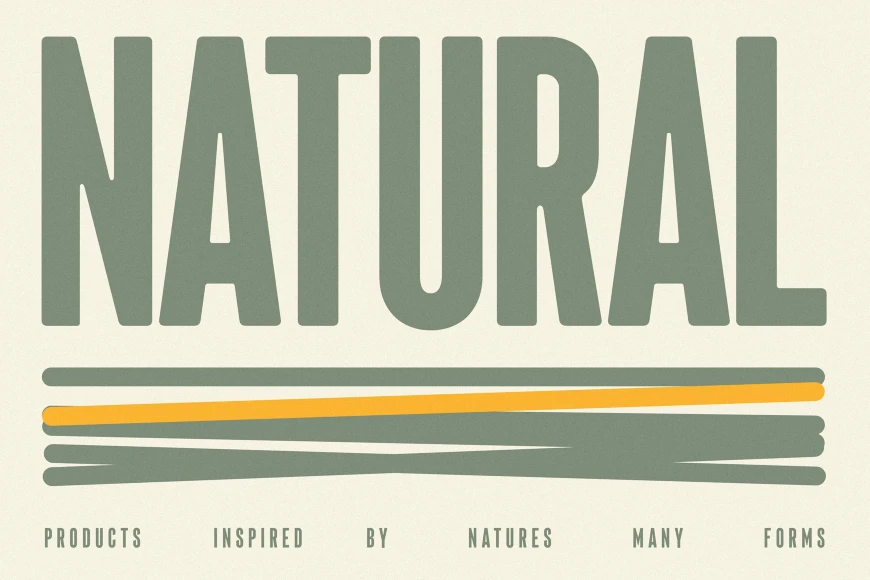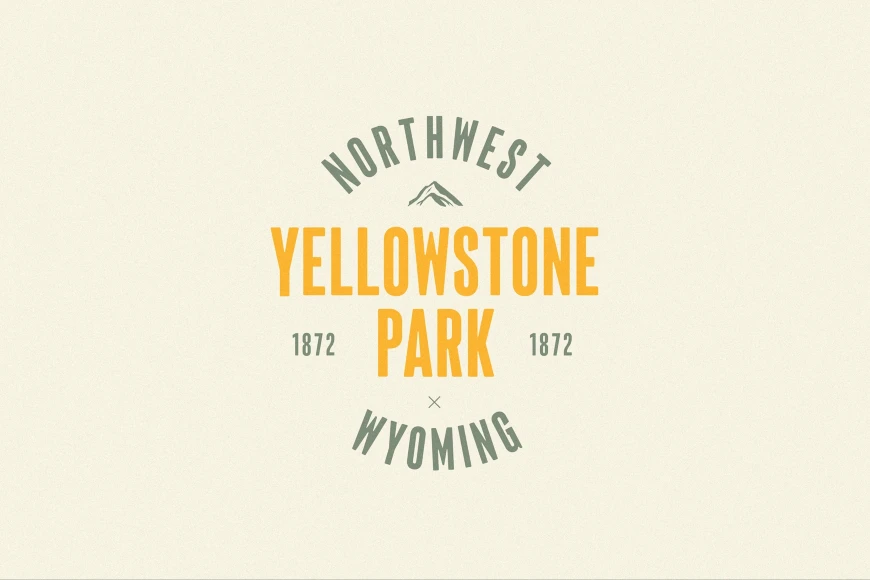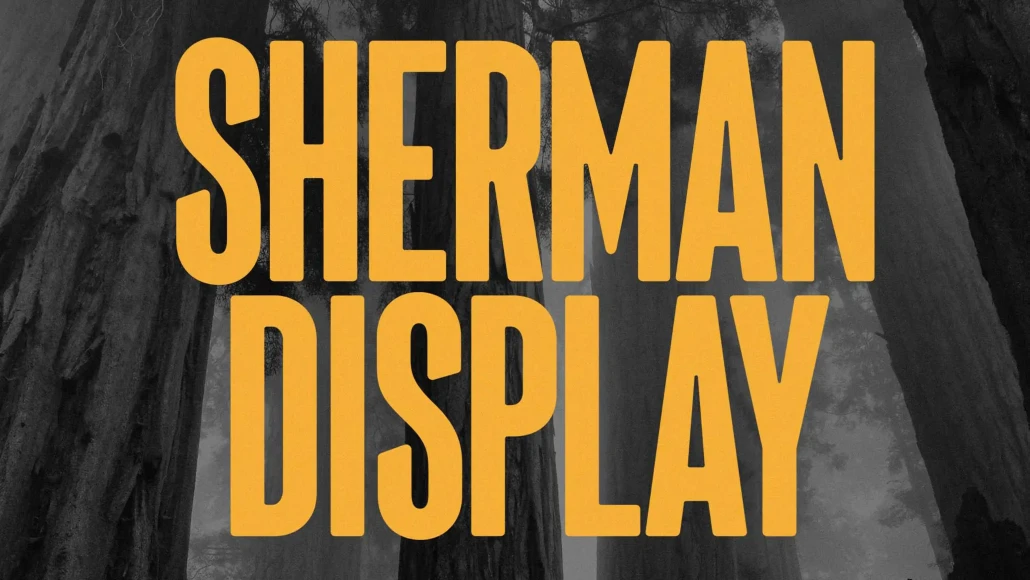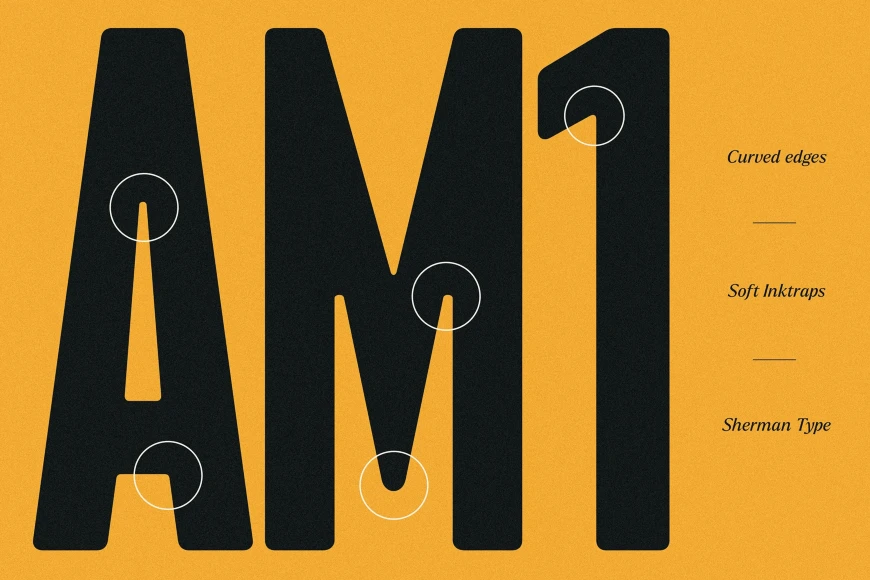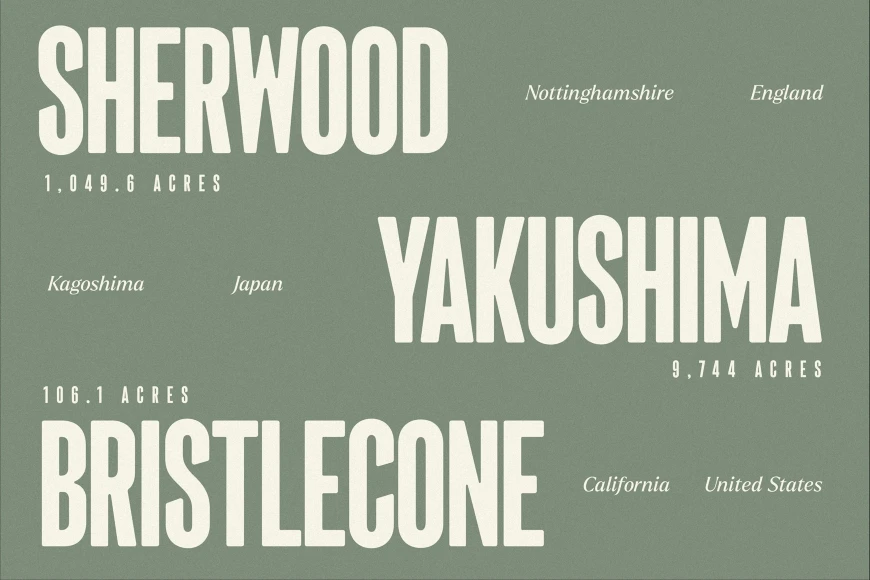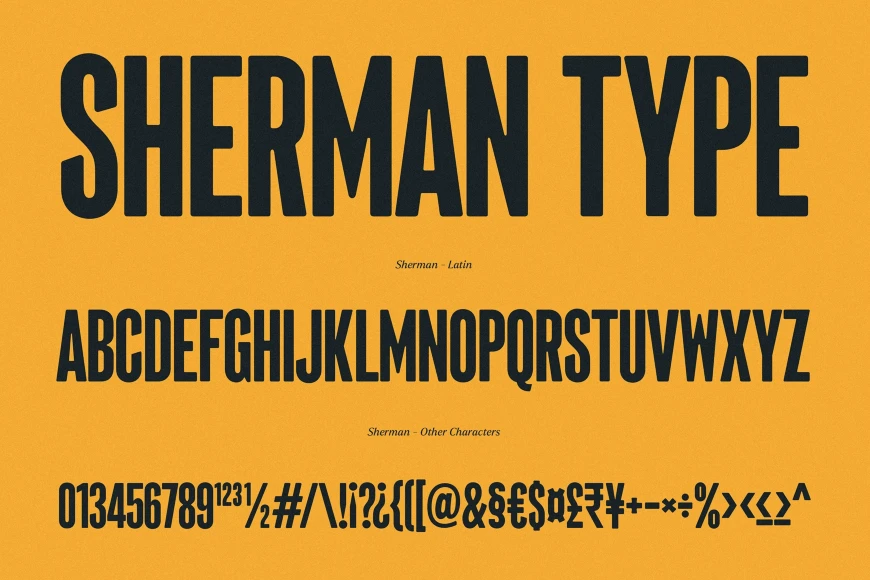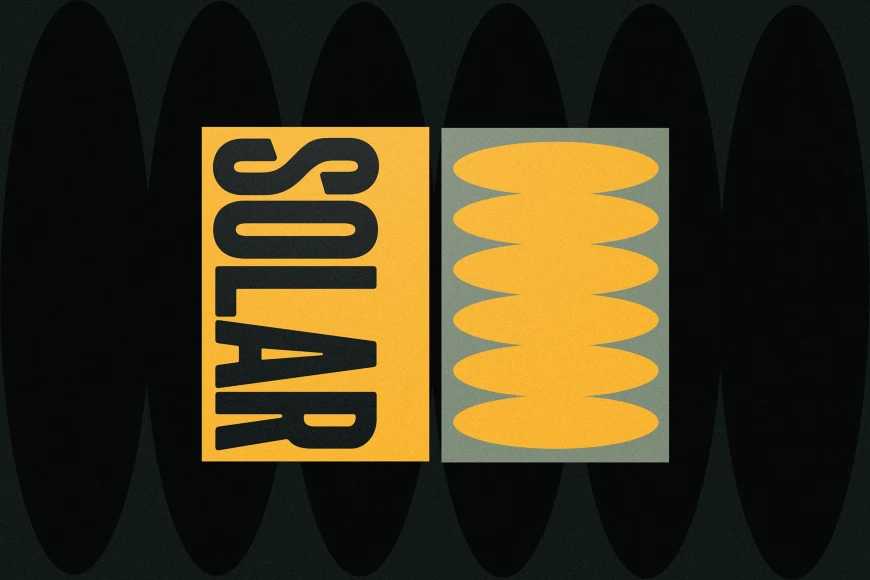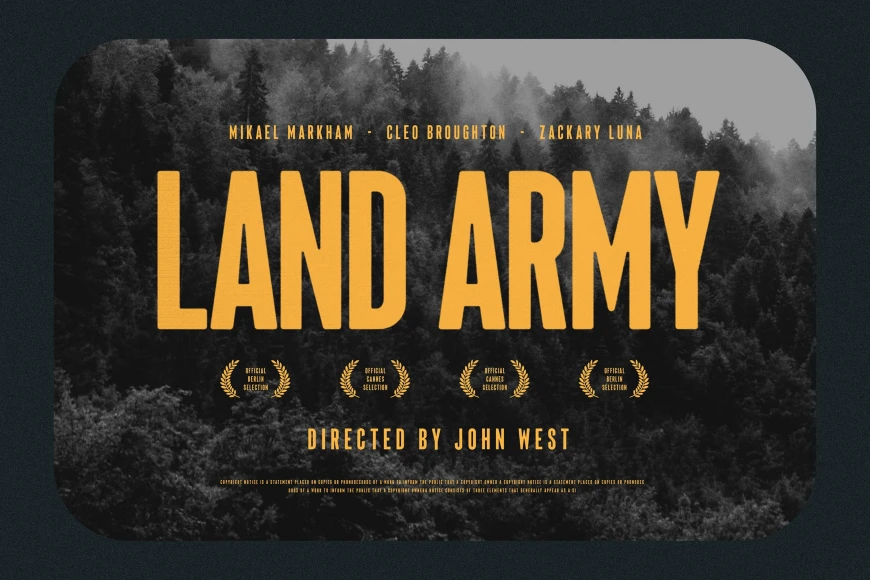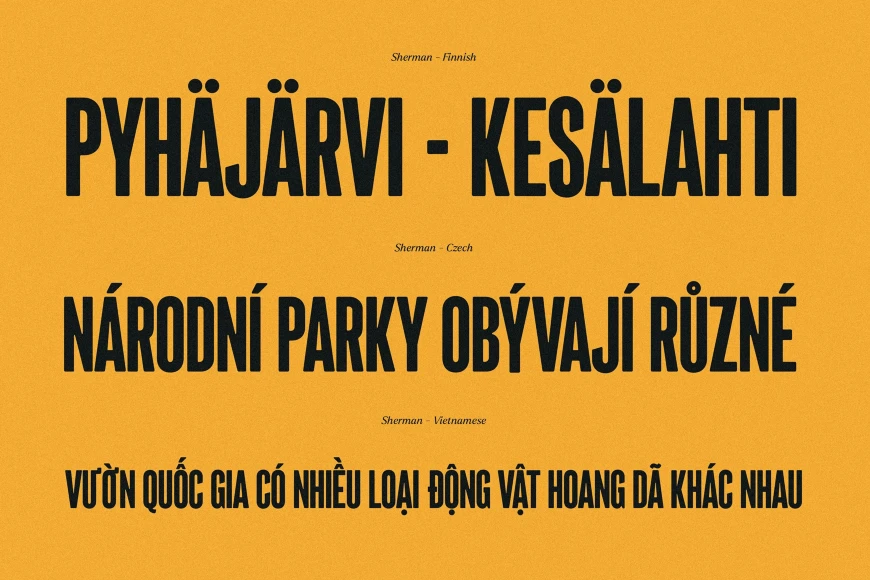
Sherman
By Ellen Luff
Sherman Display
Sherman Regular Italic
Sherman, from Ellen Luff Type Foundry, is a soft yet assertive, condensed sans serif — a gentle giant in the world of typefaces. Drawn to give headlines a confident and imposing base, while still feeling warm and friendly. It brings its own personality to the world of tall typefaces, with sleek, slanted terminals and optical adjustments to balance the big away from the heavy. It’s an all-caps font with rounded ink traps and softened edges, performing best at large sizes. Print or pixels, it’s a strong choice for headlines, titles, signage, branding, and designs that require an eye-grabbing impact.
Sherman gets its name from General Sherman, the world’s largest known living tree, located in Sequoia National Park.
Larken, also available from Ellen Luff Type Foundry, is the italic serif typeface used in the mockups.